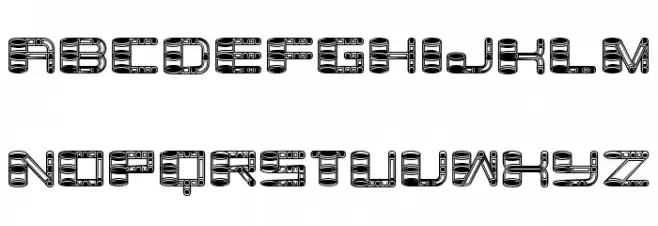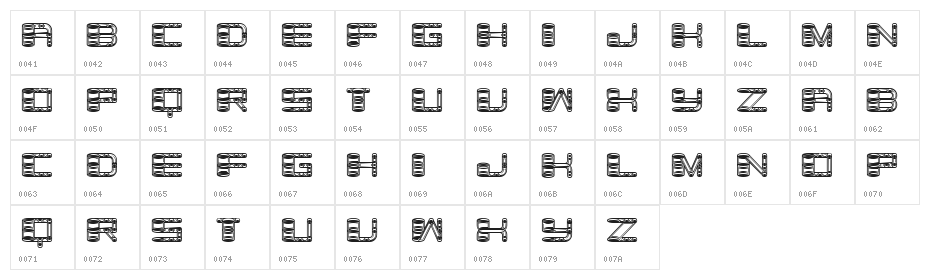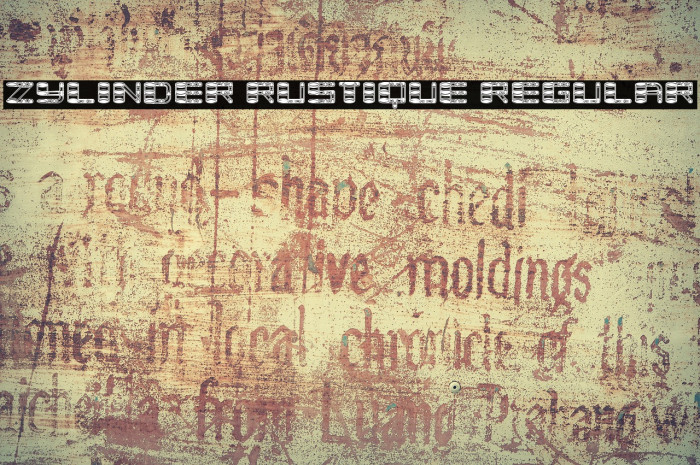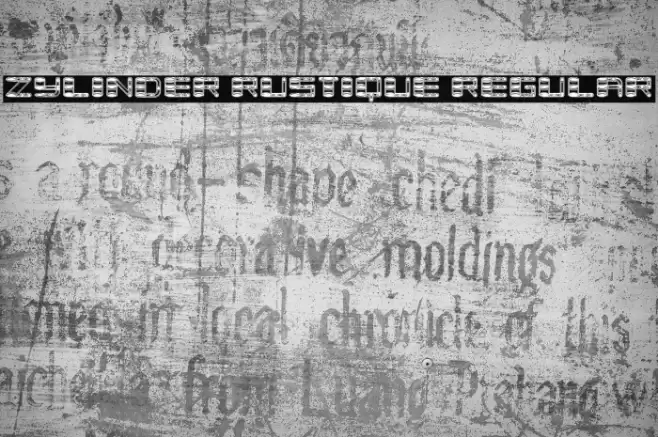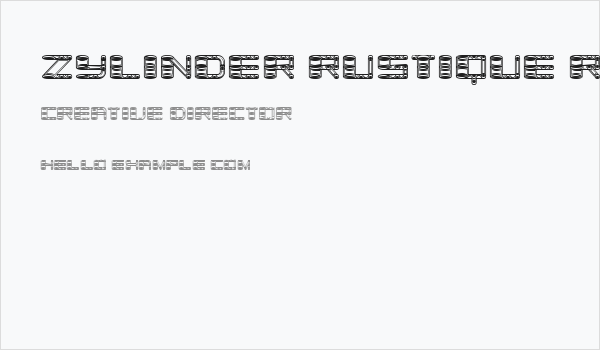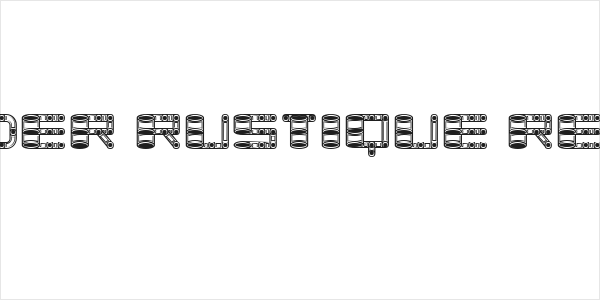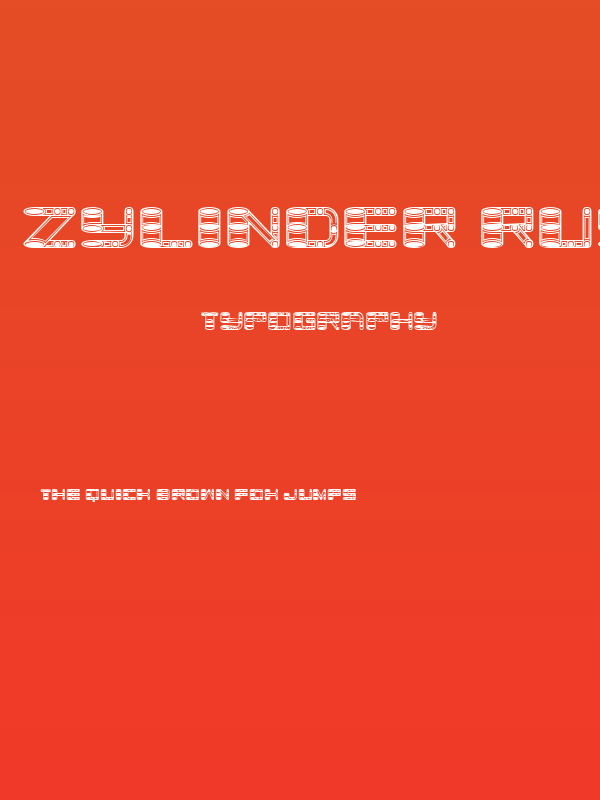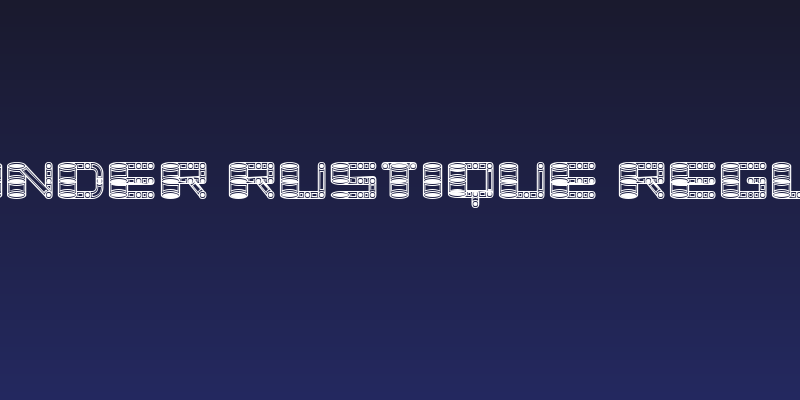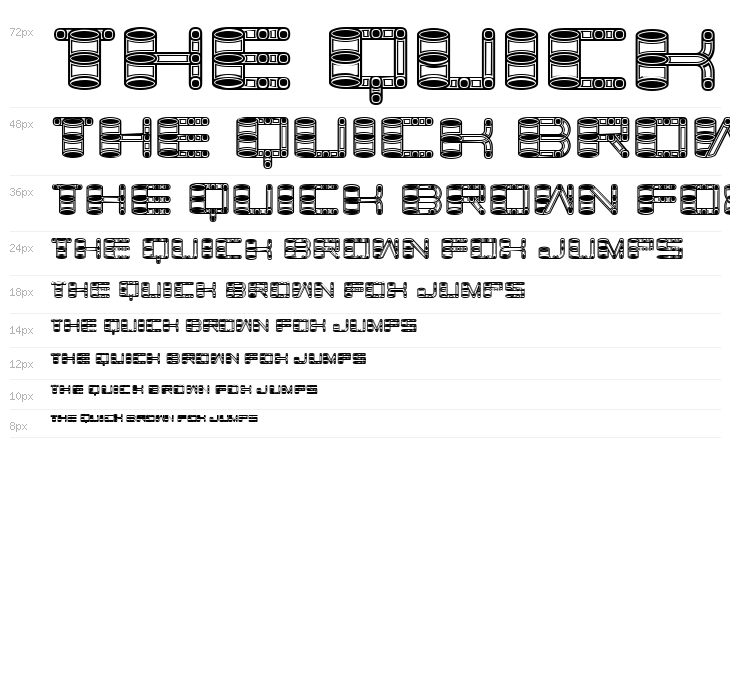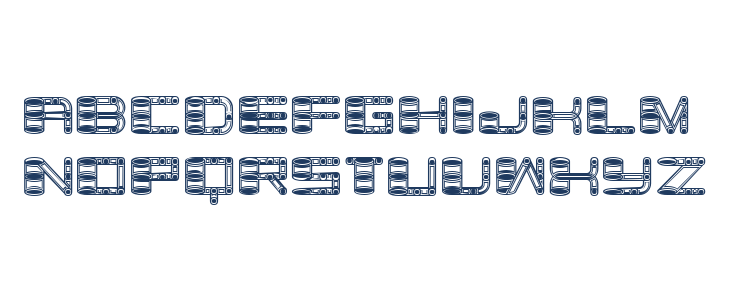
Zylinder Rustique Regular Font
Zylinder Rustique Regular Description
This font features a unique and decorative style, characterized by its intricate patterns within each letterform. The design incorporates a blend of geometric shapes and ornate detailing, giving it a distinct and eye-catching appearance. Each character is outlined with a bold stroke, enhancing its visibility and adding to its decorative flair. The font maintains a consistent structure across all characters, ensuring readability while showcasing its artistic elements. Its playful yet sophisticated design makes it suitable for creative and artistic projects.
| Use Case | Logos, Posters, Creative Designs |
| Proposed Projects | Ideal for artistic projects, posters, branding, and creative designs that require a standout font. |